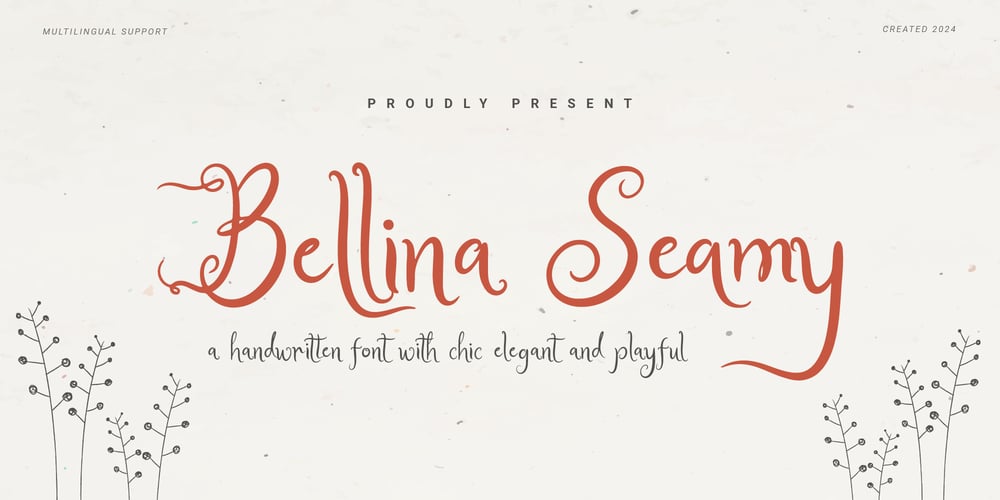
Bellina Seamy Font Family was designed by Dede Nugraha and published by Denustudio. Bellina Seamy contains 2 styles and family package options. Bellina Seamy | Handwritten Chic Font, from Denustudios, suitable for any projects such as: logos, branding projects, homeware designs, product packaging, mugs, quotes, posters, shopping bags, t-shirts, book covers, name card, invitation cards, greeting cards, label, photography, watermark, special events, and all your other lovely projects that need a Handwritten Chic Font taste.===========================================================================What’s Included : Regular and Italic Web Font Standard glyphs Alternate and Ligature Works on PC & Mac Simple installations Accessible in the Adobe Illustrator, Adobe Photoshop, Adobe InDesign, even work on Microsoft Word and Other Software. PUA Encoded Characters – Fully accessible without additional design software. Fonts include multilingual support Hope you enjoy with our font!